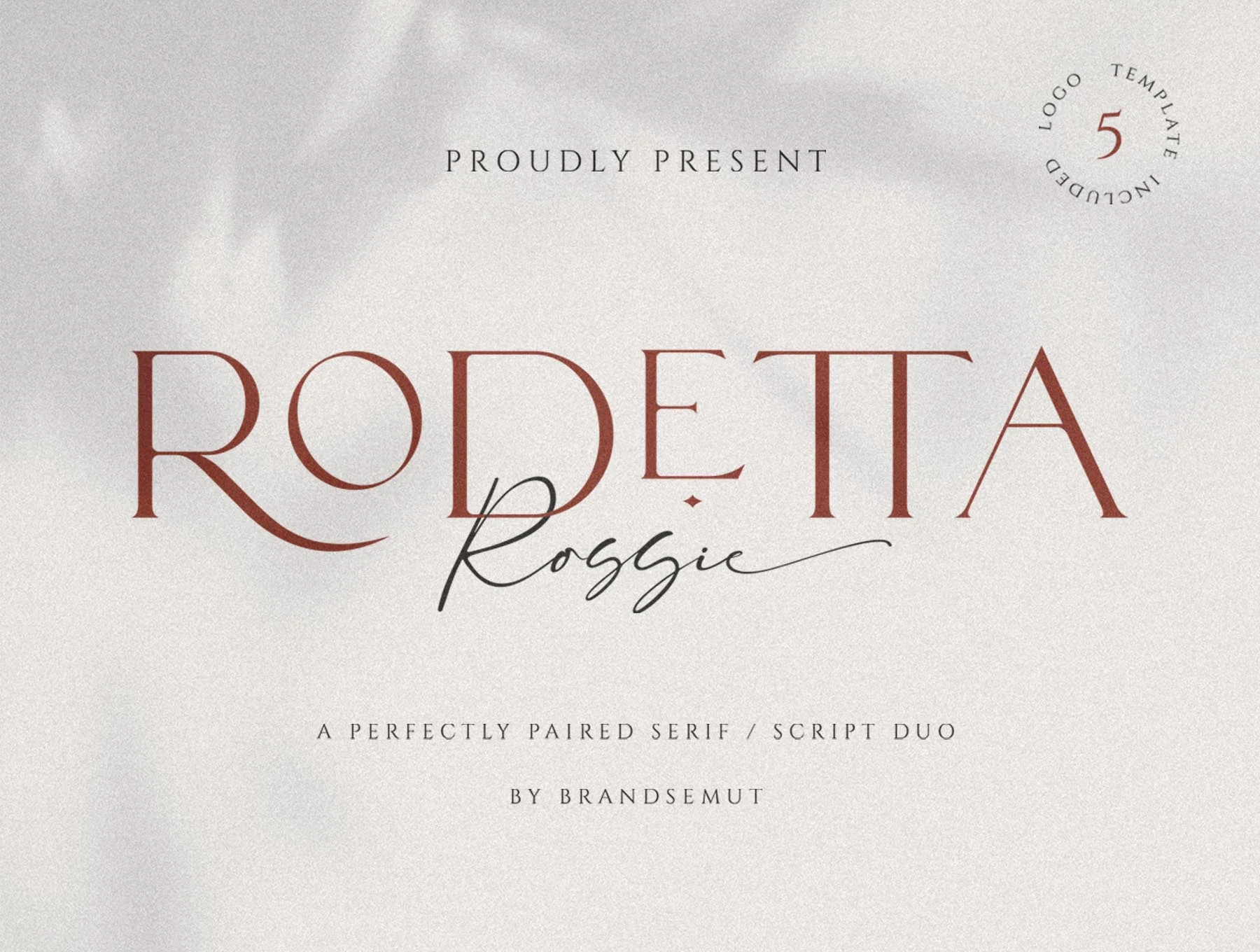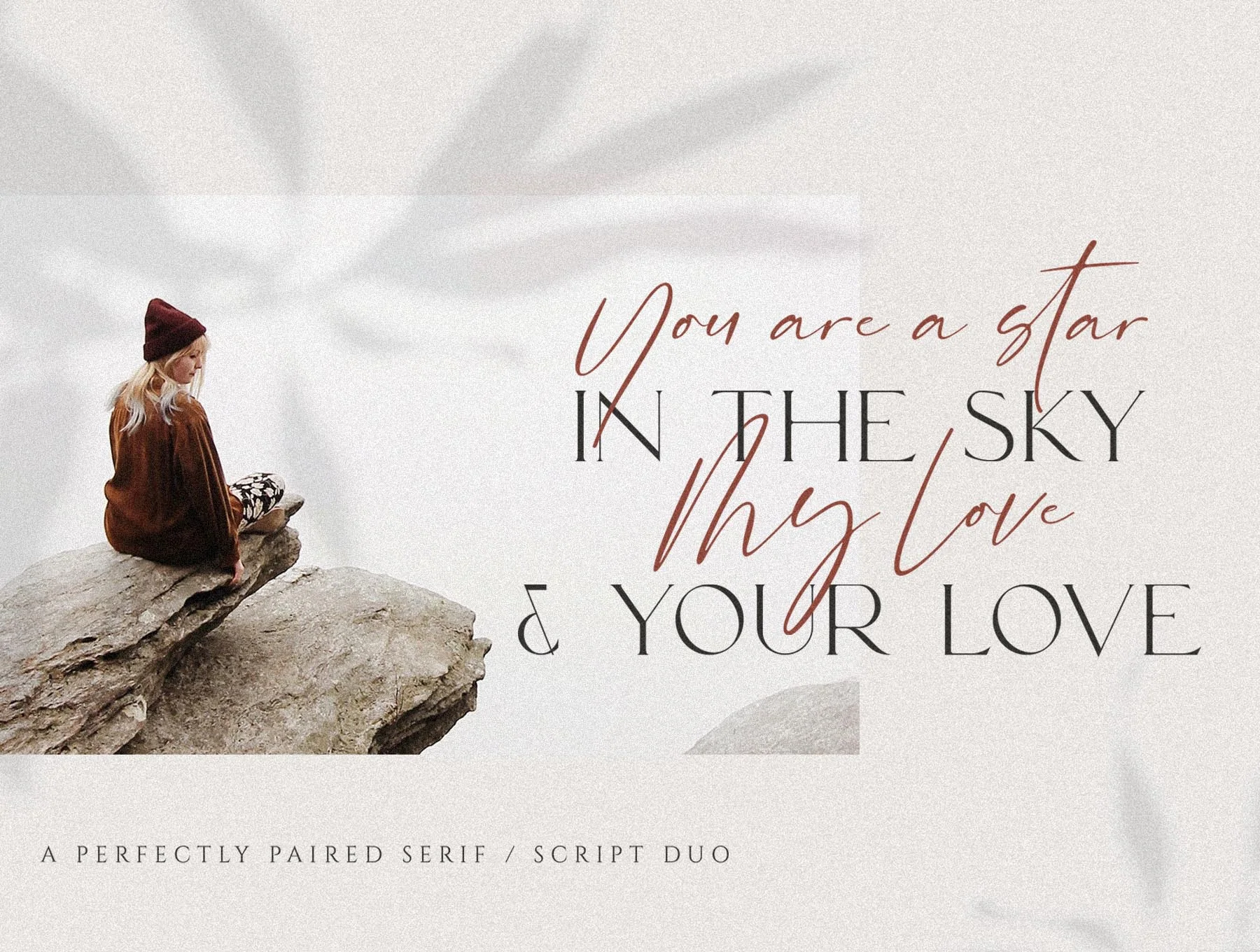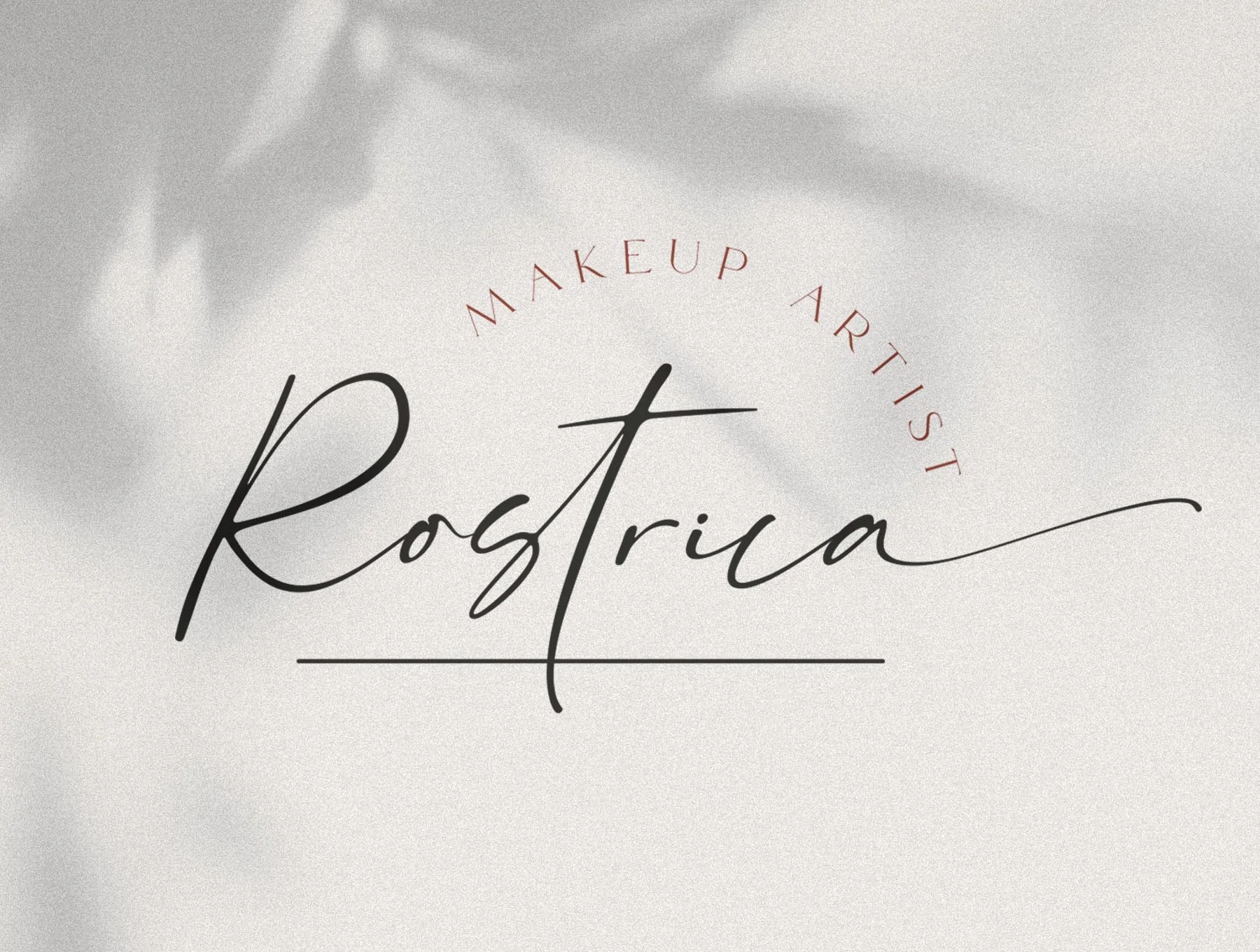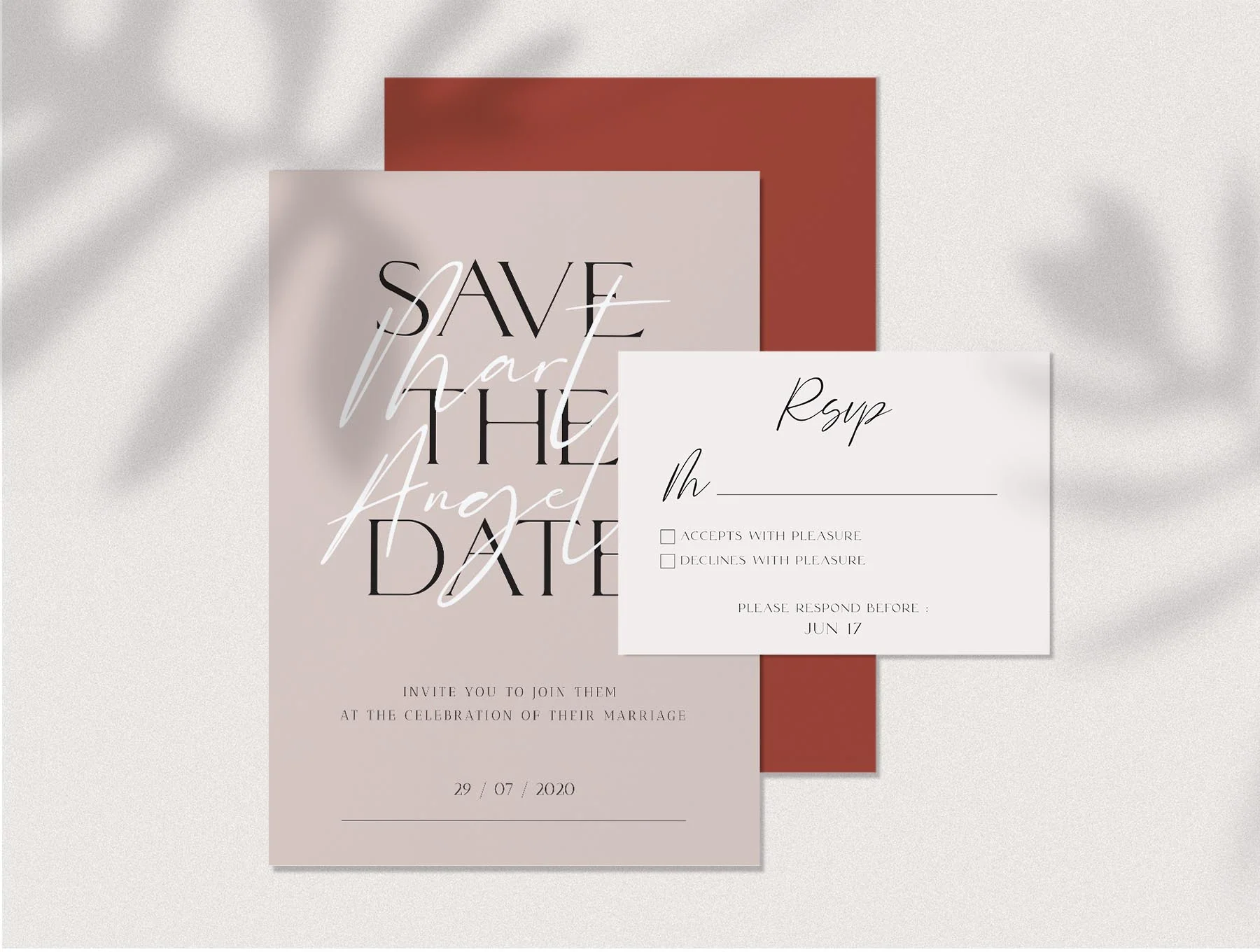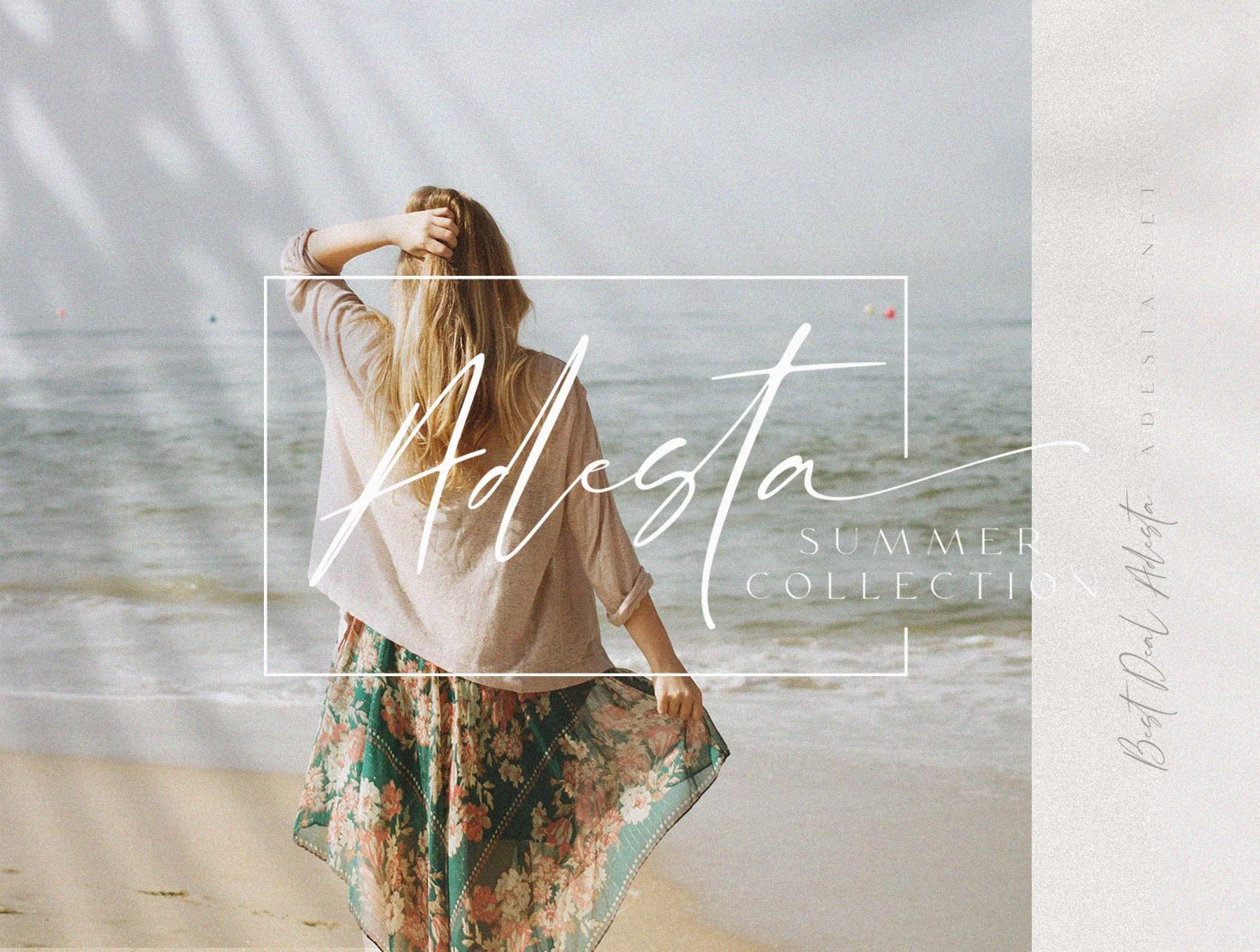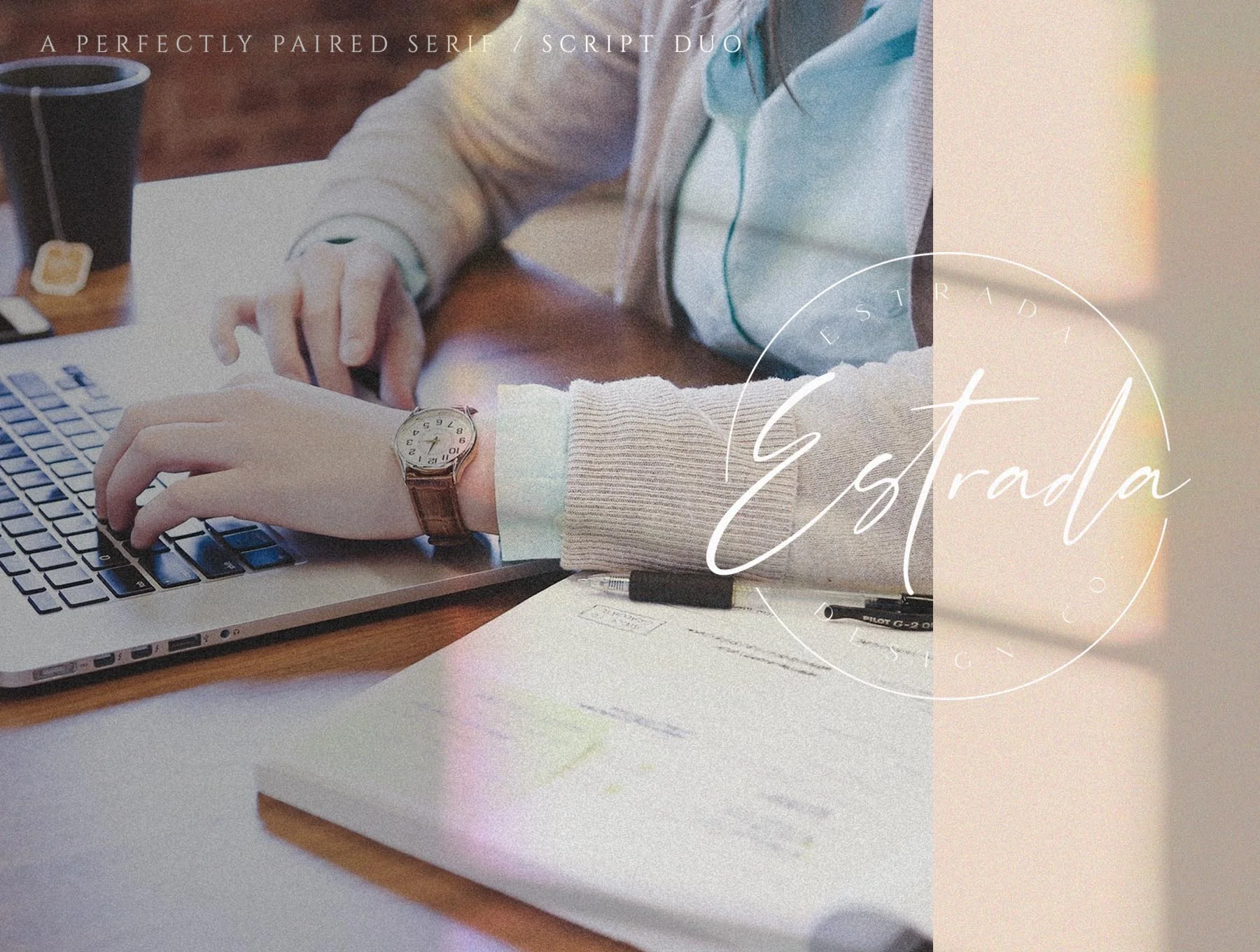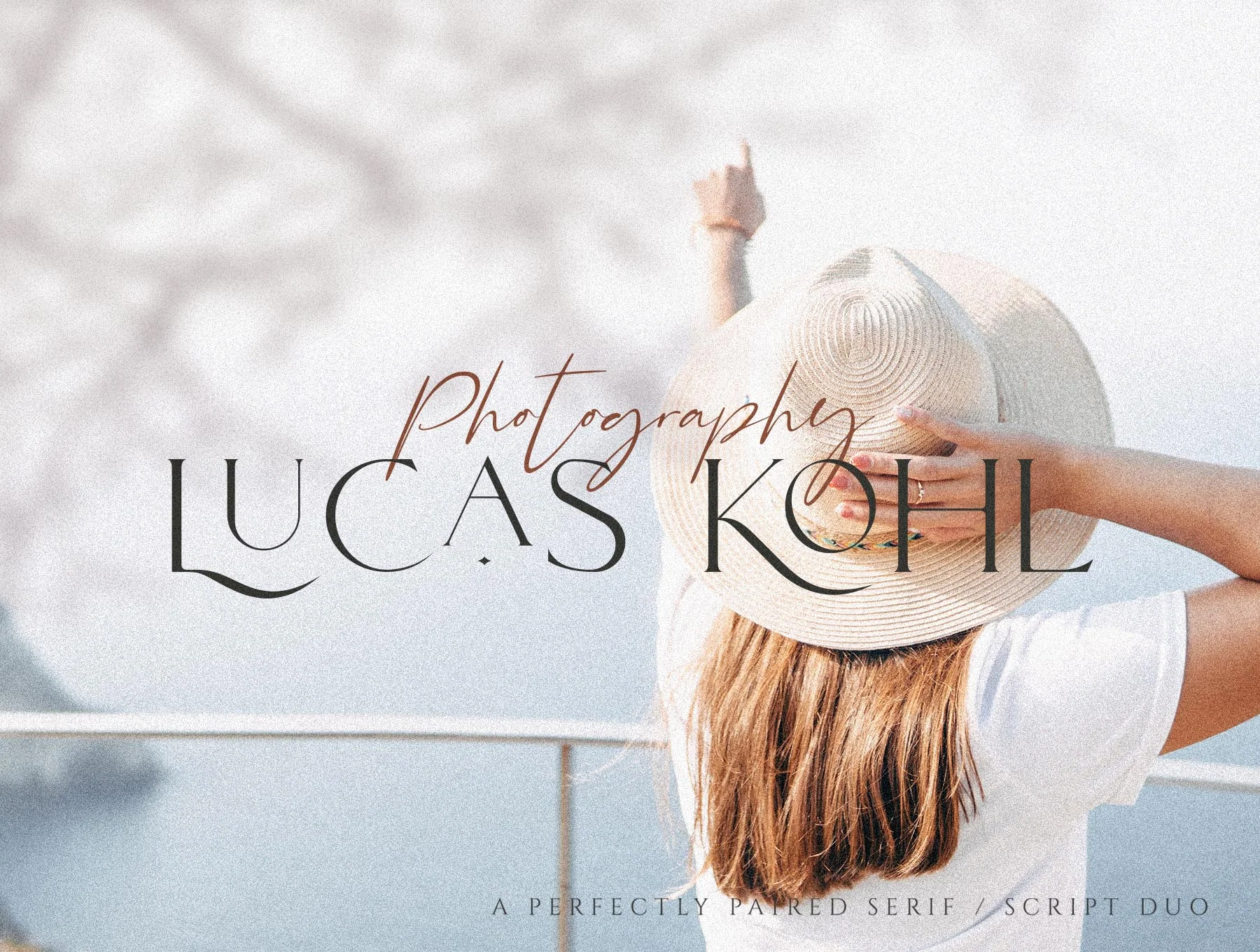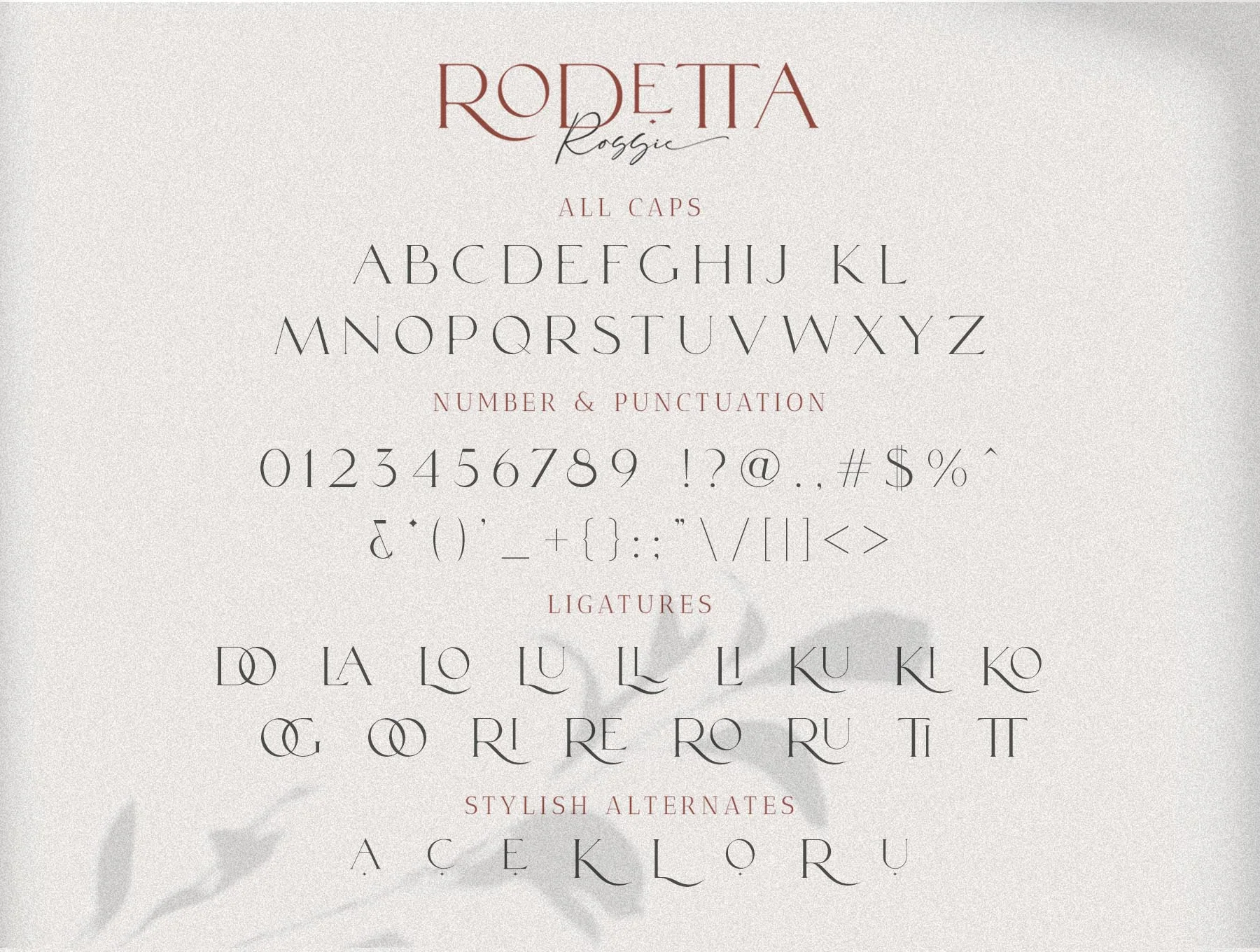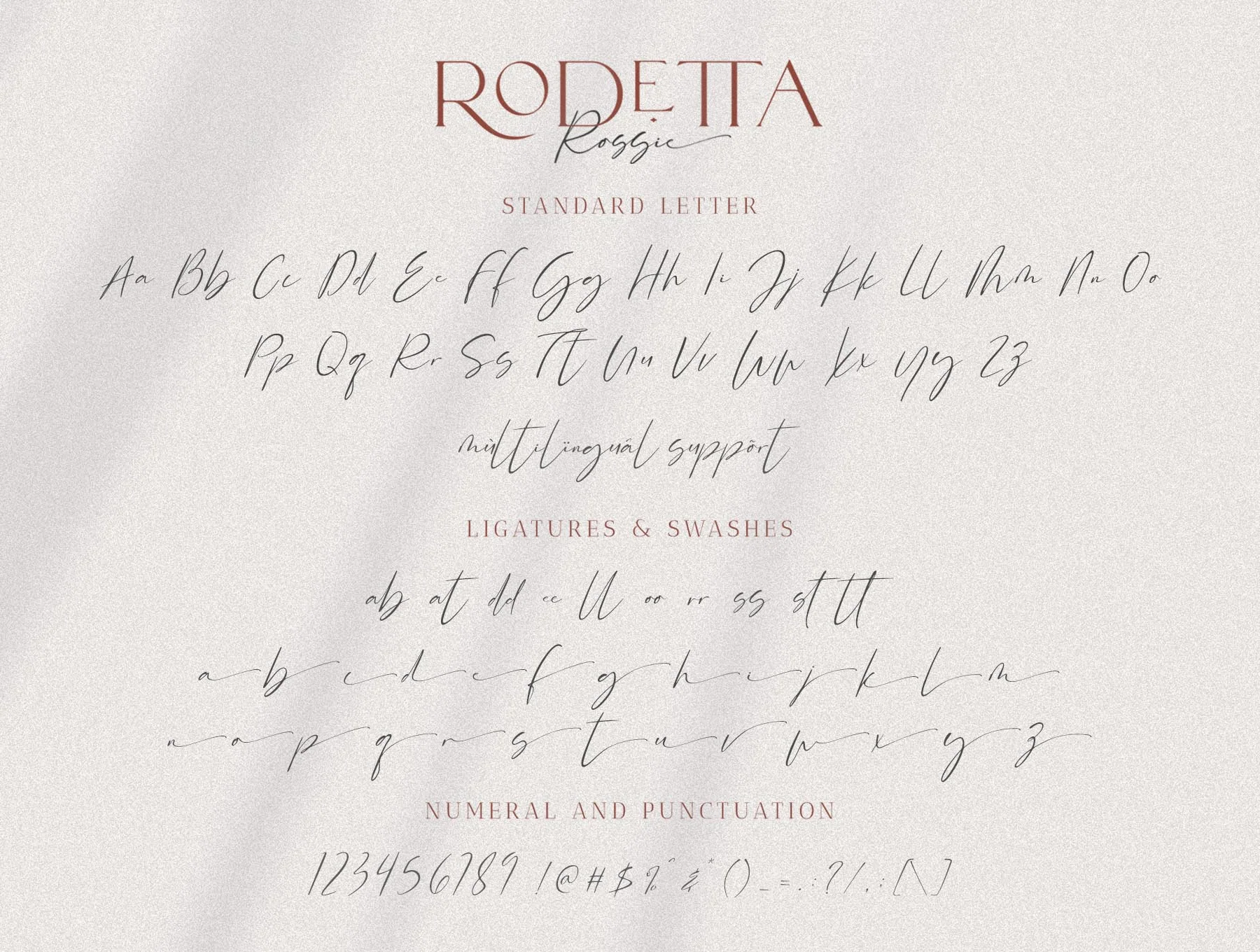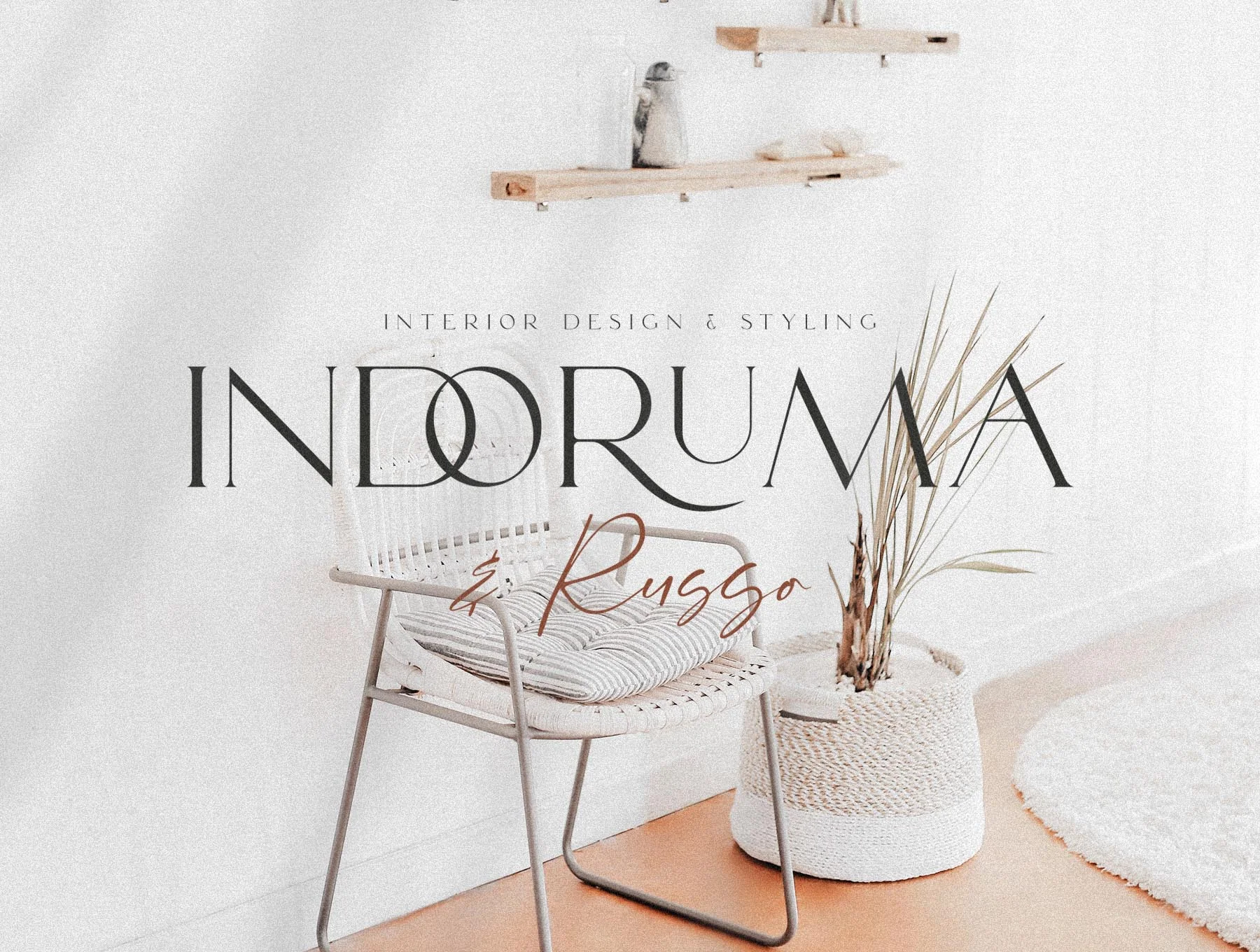
Rodetta Rossie Font Duo + Logos
Rodetta Rossie paired typeface set plus 5 extra logo templates
Paired Typefaces
Serif with Script Styles
Five Extra Logo Templates
Rodetta Rossie Font Duo pairs a refined signature script with a matching serif, plus 5 editable bonus logo templates. Ideal for elegant, chic, stylish, and modern designs, it includes OpenType ligatures, alternates, ending swashes, numerals, punctuation, and multilingual support. Files: OTF, TTF, WOFF, serif font, script font, and customizable logos.